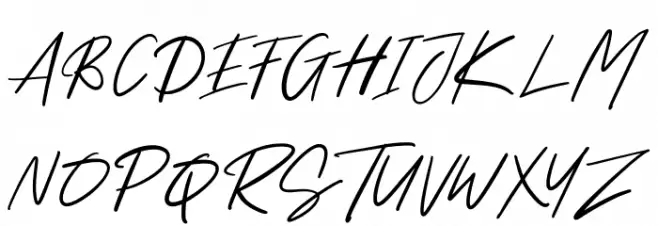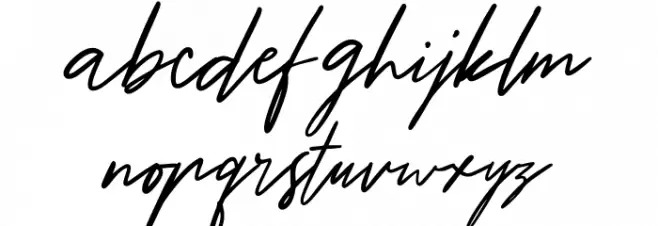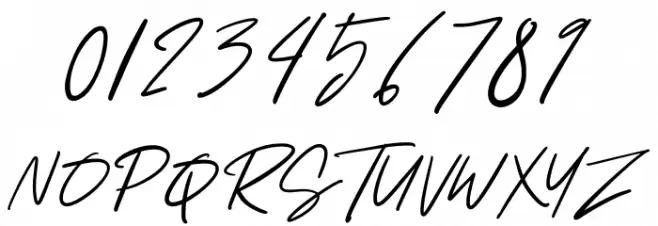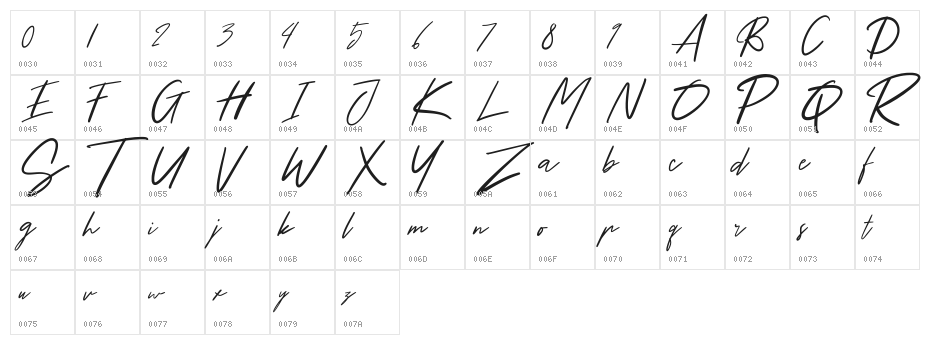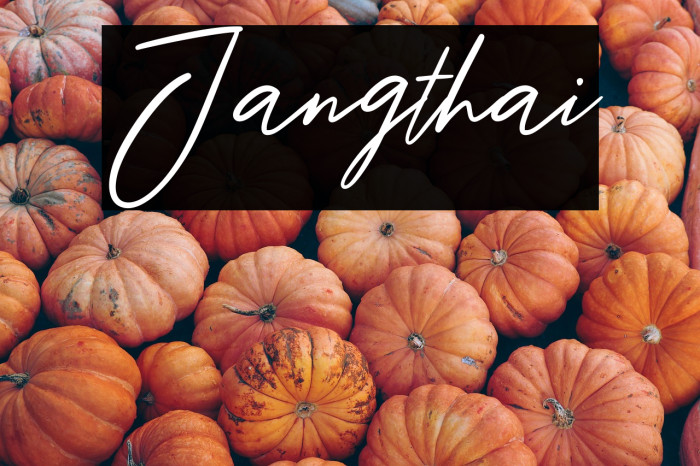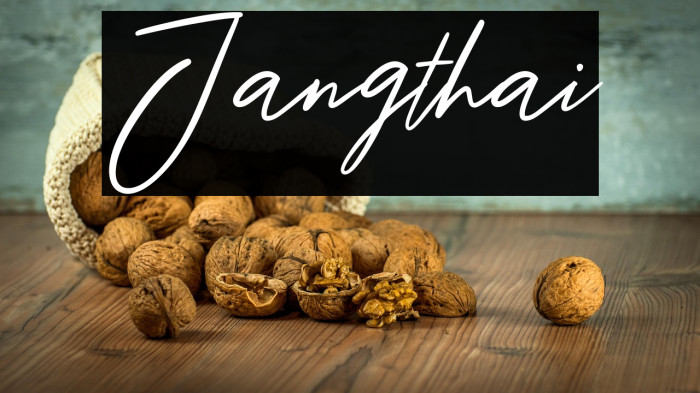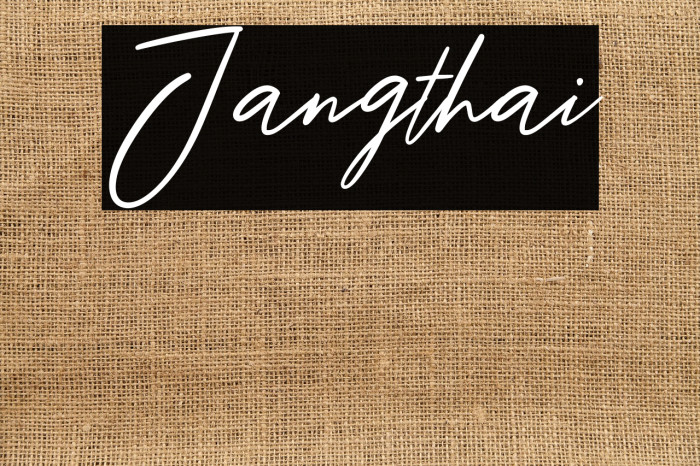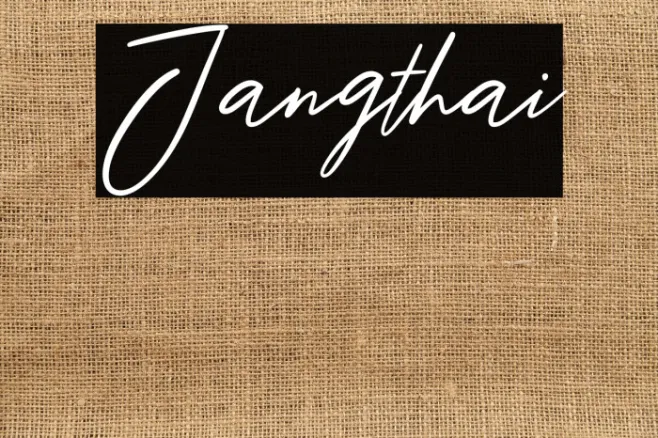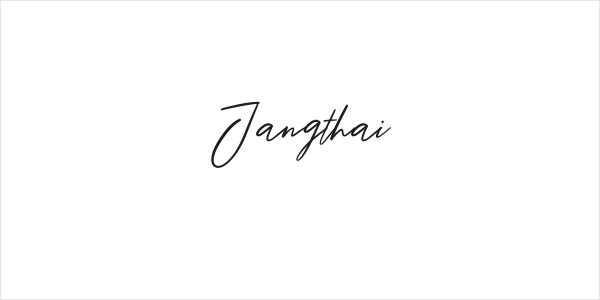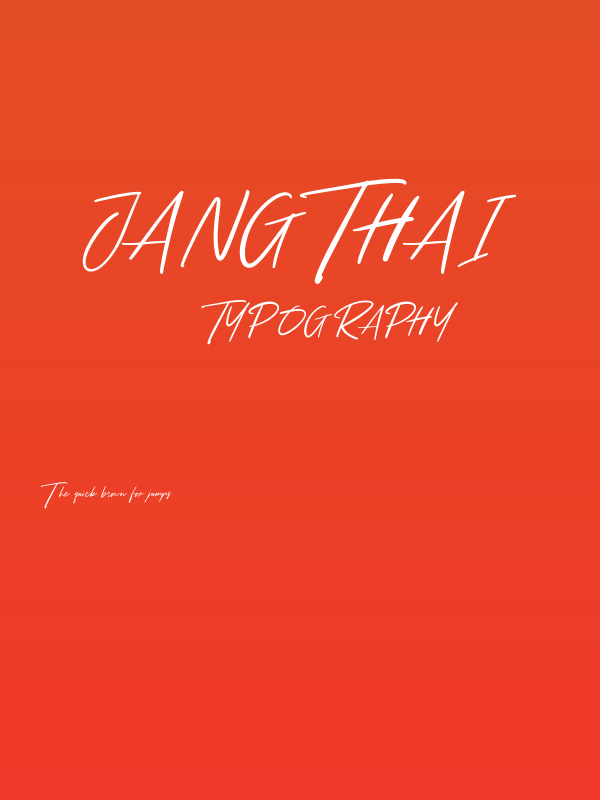
Jangthai Font
Jangthai Description
A dynamic and expressive handwritten script font with a casual and flowing style.
Expressive handwritten script font.
- Font: Jangthai
- Proposed Projects: Greeting cards, invitations, personal branding.
- Category: Handwritten
- Overall Style: Casual, Expressive
- Use Case: Logos, Headlines, Personal projects